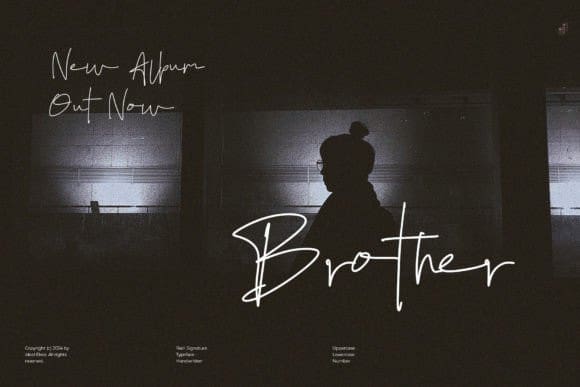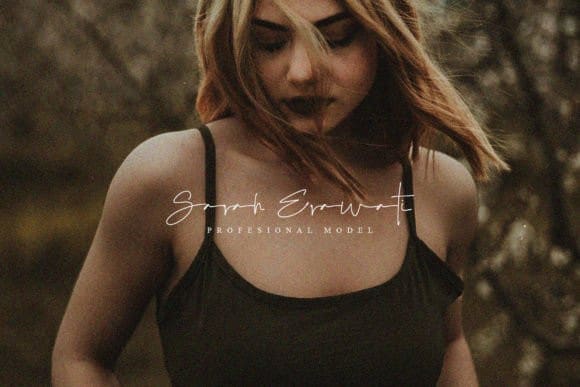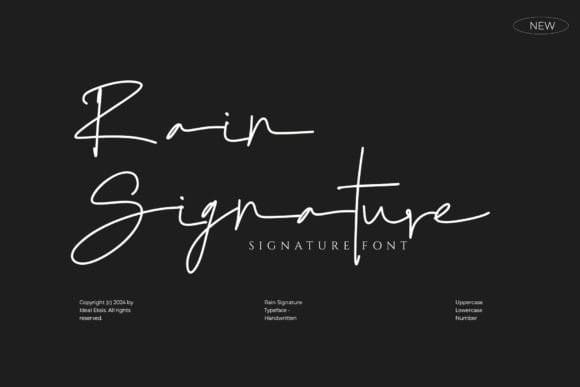
Rain Signature Font
Rain Signature Font, a sleek and minimalistic script font designed with elegance and simplicity in mind. This monoline signature font combines the fluidity of hand-drawn lettering with the precision of clean lines, making it the perfect choice for creating sophisticated and timeless designs.
Rain Signature’s monoline style ensures a consistent stroke width throughout, offering a balanced and harmonious appearance. Whether you’re crafting logos, invitations, business cards, or social media graphics, this font’s effortless charm and readability will elevate your projects.
Embrace the understated beauty of Rain Signature and let its minimalist design bring a touch of refinement to your creative work.